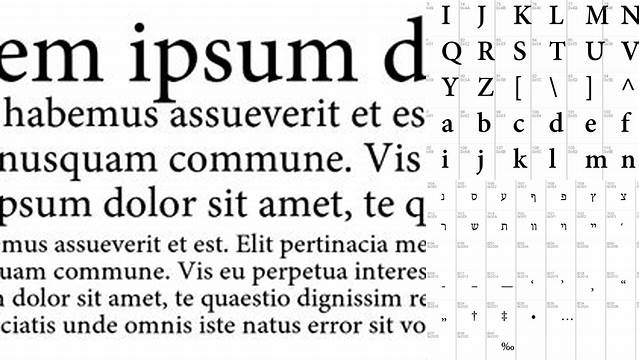
What is Adobe Hebrew Normal Font?
Adobe Hebrew Normal is a classic and widely-used typeface known for its clarity, readability, and elegant design. It's a staple in the design world, particularly for projects requiring Hebrew text. This font, created by Adobe, is part of the larger Adobe font family, ensuring consistency and quality. Its balanced letterforms and consistent strokes make it ideal for various applications, from print to digital media. Understanding the nuances of Adobe Hebrew Normal font is crucial for designers and anyone working with Hebrew typography. Its well-defined characters ensure legibility across different sizes and resolutions, making it a reliable choice for body text, headlines, and more. The font’s design reflects a deep understanding of Hebrew script, maintaining its traditional elegance while incorporating modern design principles. This blend of classic and contemporary elements makes it a versatile option for a wide range of projects.
Key Features of Adobe Hebrew Normal
- Readability: Designed for optimal legibility, even in smaller sizes.
- Versatility: Suitable for both print and digital media.
- Classic Design: A timeless look that complements various design styles.
- Part of the Adobe Family: Ensures consistency with other Adobe fonts.
- Balanced Letterforms: Consistent strokes and well-defined characters.
When considering the best font for your project, Adobe Hebrew Normal font stands out due to its thoughtful design and broad applicability. Its readability is particularly noteworthy, making it an excellent choice for lengthy texts and documents. The versatility of the font also means it can be used effectively in different contexts, whether you’re designing a website, creating marketing materials, or working on a book. The classic design ensures that your work will have a timeless appeal, while its inclusion in the Adobe font family means you can easily pair it with other Adobe fonts for a cohesive look. Furthermore, the balanced letterforms contribute to an overall aesthetic harmony, making the text visually pleasing and easy to read. This attention to detail is what sets Adobe Hebrew Normal apart from other Hebrew fonts, making it a preferred choice for many professionals.
Using Adobe Hebrew Normal Font in Your Projects
Now that you have the Adobe Hebrew Normal font installed, let's talk about how you can use it in your projects. This font is incredibly versatile, making it suitable for a wide range of applications. Whether you're designing a website, creating marketing materials, or working on a book, Adobe Hebrew Normal can add a touch of elegance and readability to your text. Its clear and balanced letterforms make it ideal for both body text and headlines, ensuring that your message is conveyed effectively. Moreover, its compatibility with other Adobe fonts allows you to create a cohesive and professional look across all your design elements.